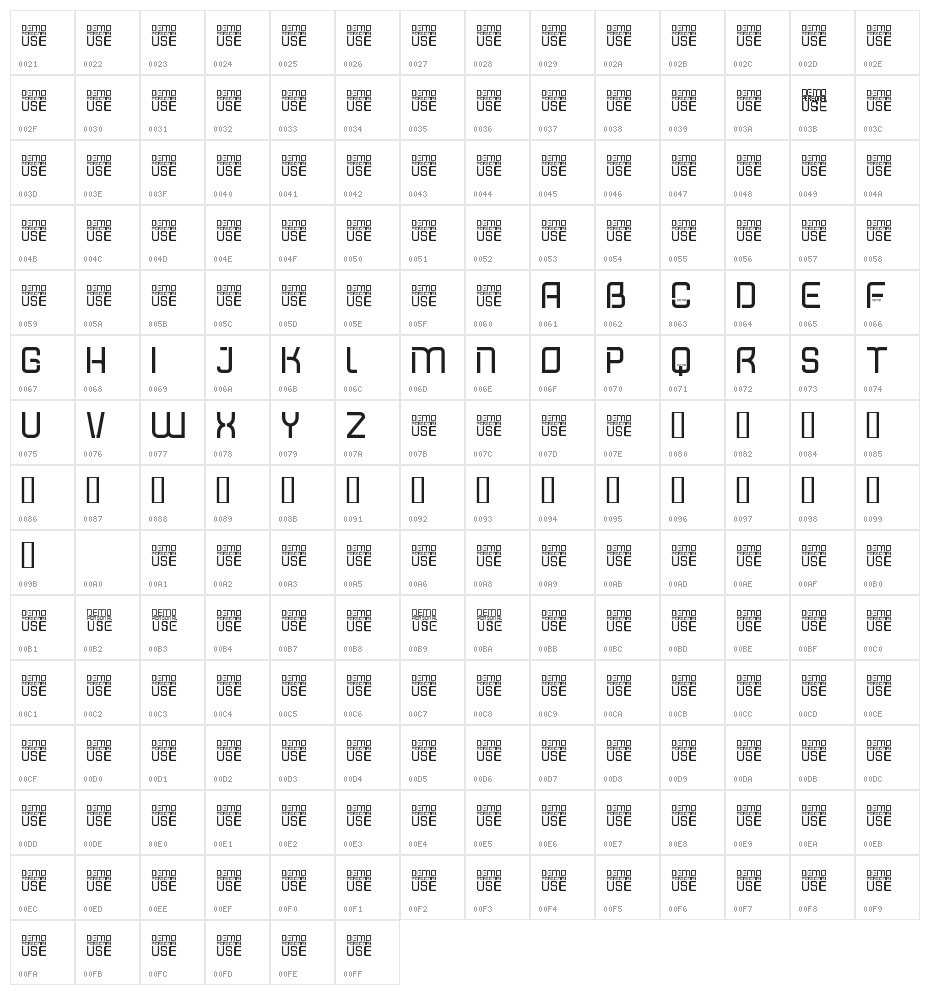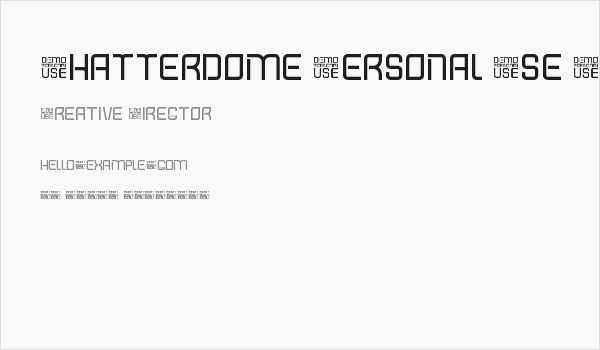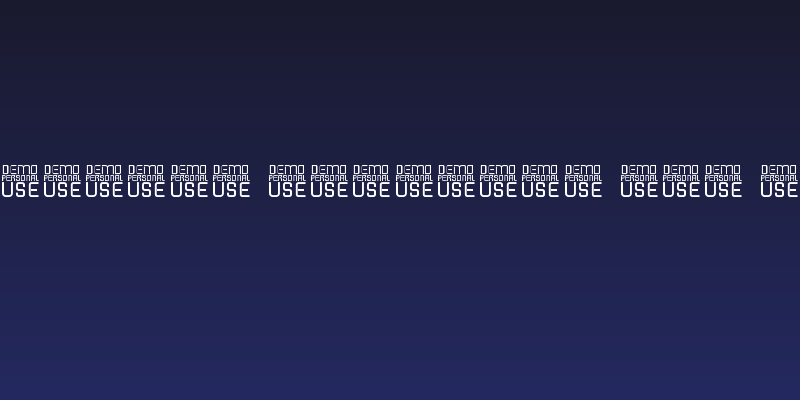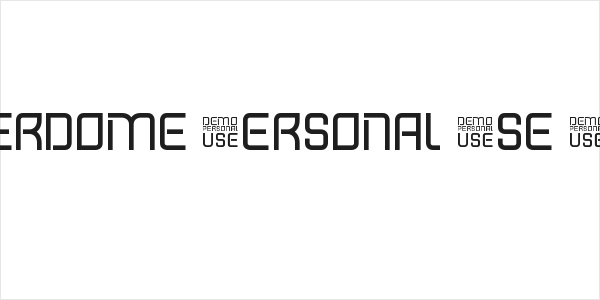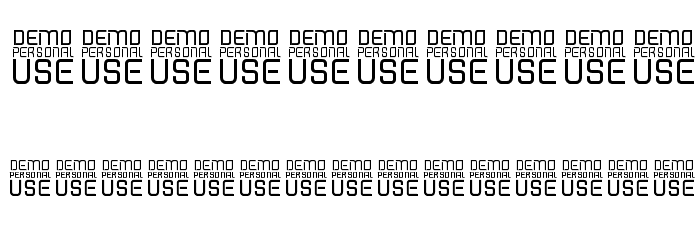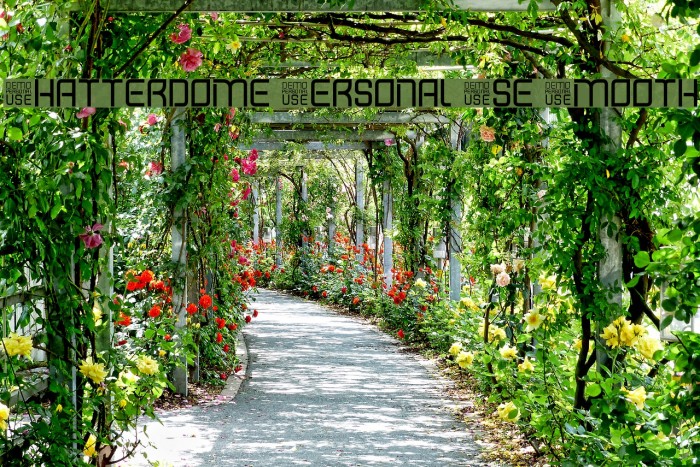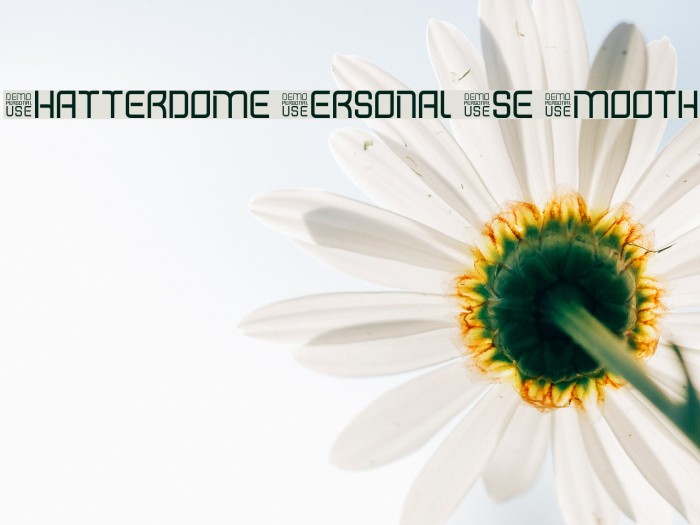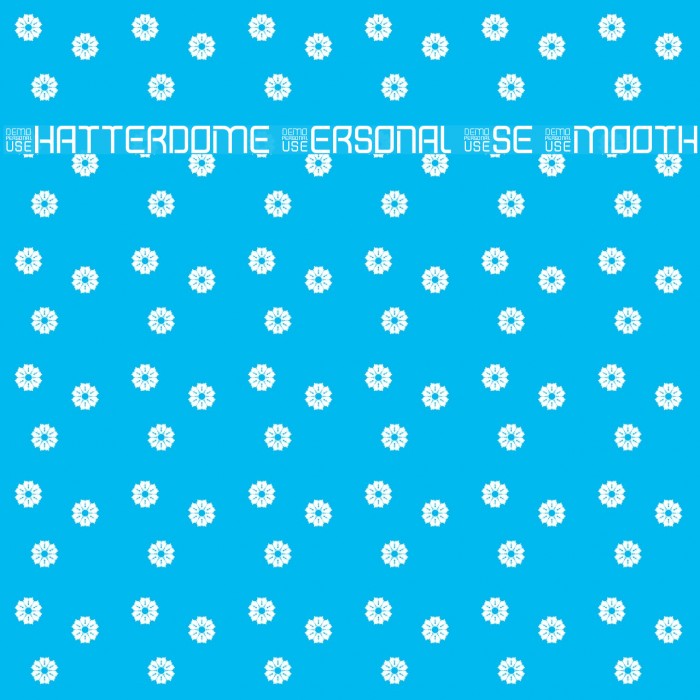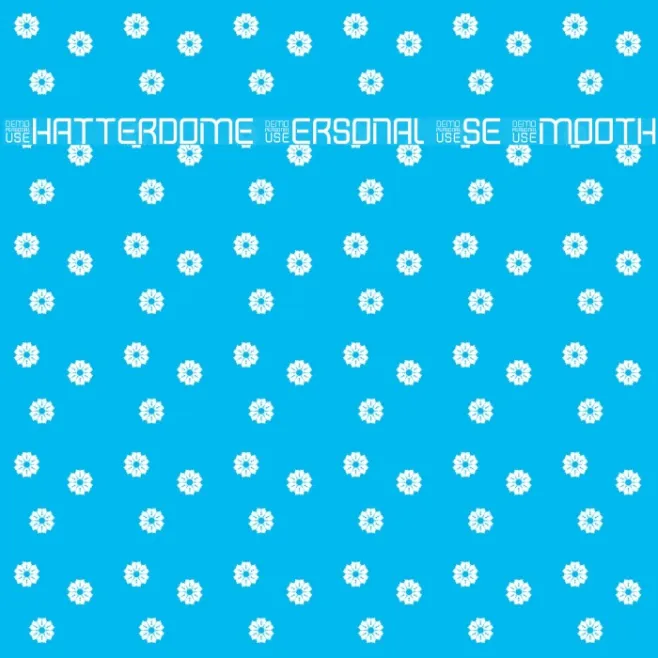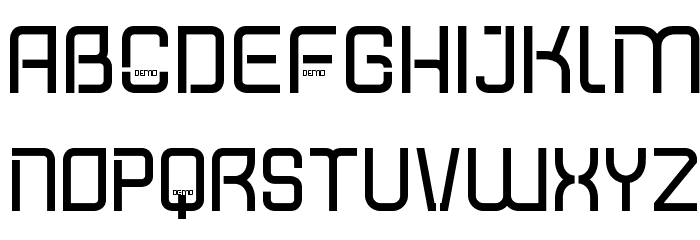
Shatterdome Personal Use Smooth Font
Shatterdome Personal Use Smooth Description
This font features a modern and futuristic design with clean, geometric lines and a slightly condensed appearance. The characters are uniform in width, giving it a monospaced feel, although it is not strictly monospaced. The uppercase letters are bold and striking, with a unique style that incorporates both sharp angles and smooth curves. The lowercase letters maintain the same geometric aesthetic, ensuring consistency across the typeface. The numbers and special characters are designed to match the overall style, making it versatile for various uses. Its sleek and contemporary look makes it suitable for projects that require a modern and technical feel.
| Overall Style | Futuristic, Geometric |
| Use Case | Headlines, Logos, Digital Interfaces |
| Proposed Projects | Ideal for technology branding, sci-fi themed projects, modern posters, and digital interfaces. |